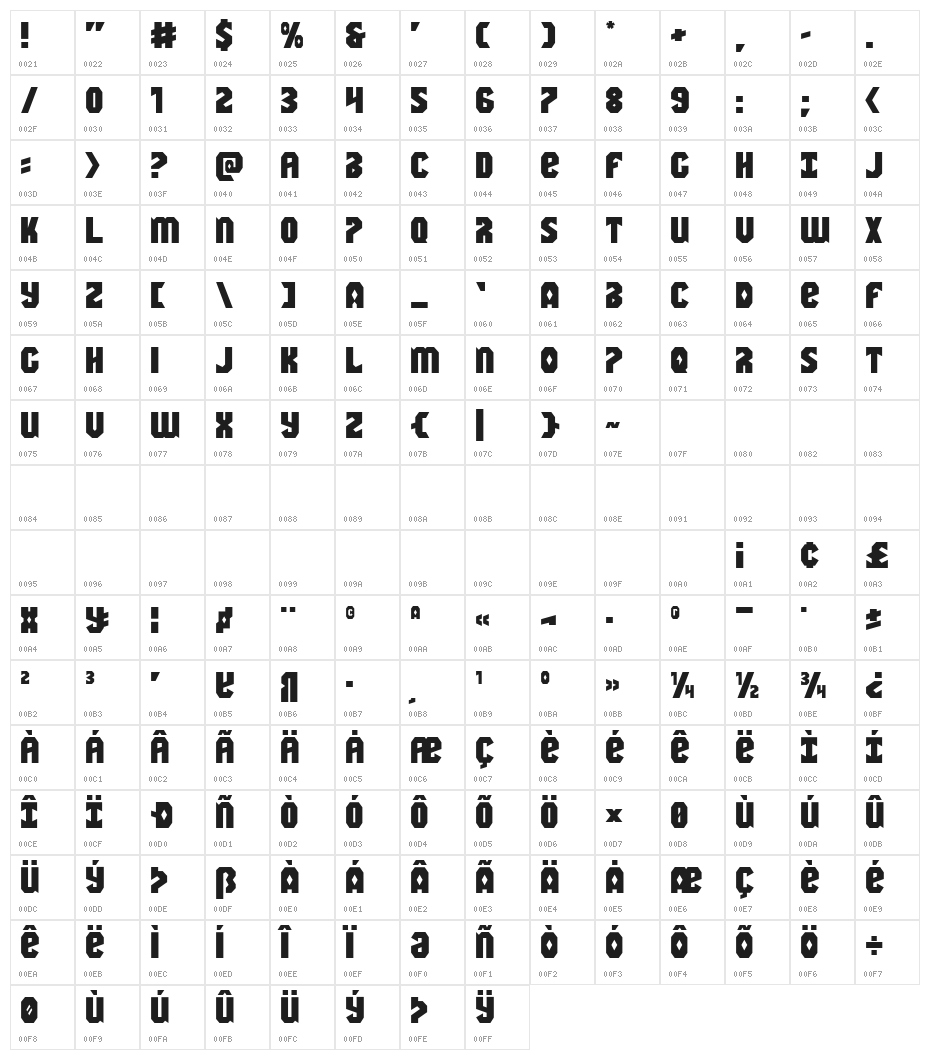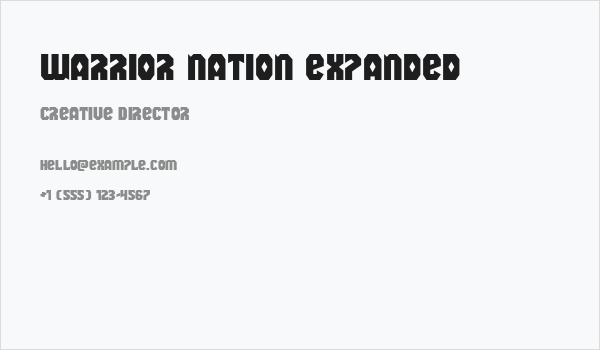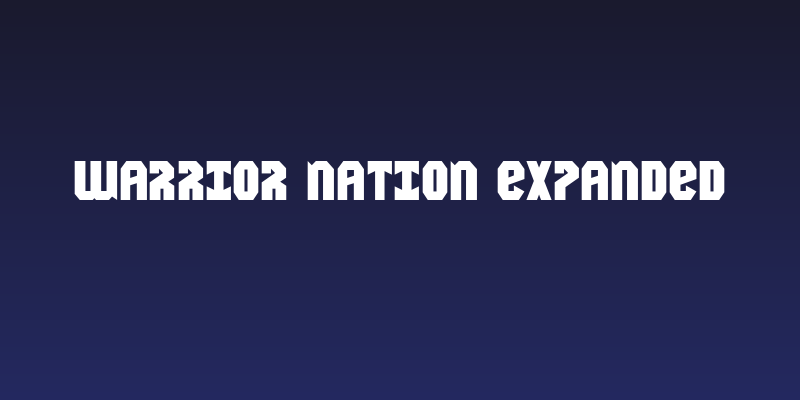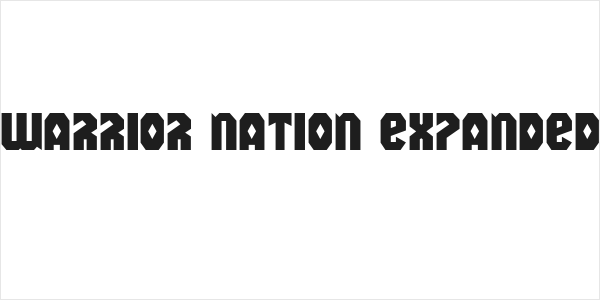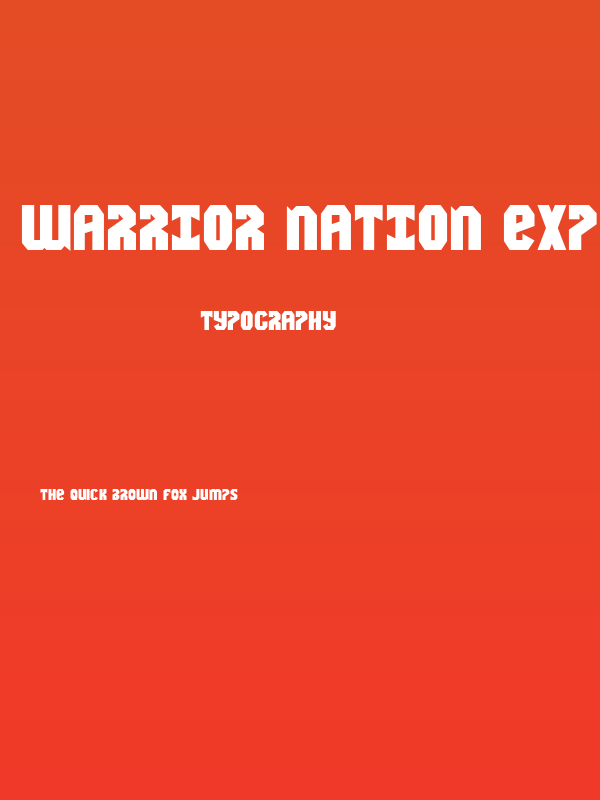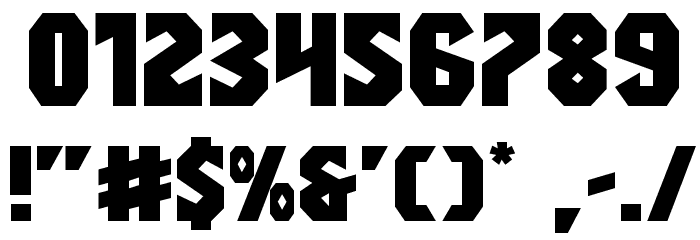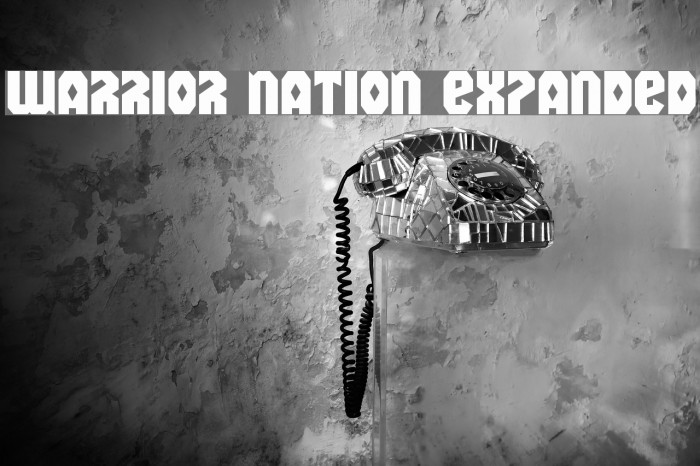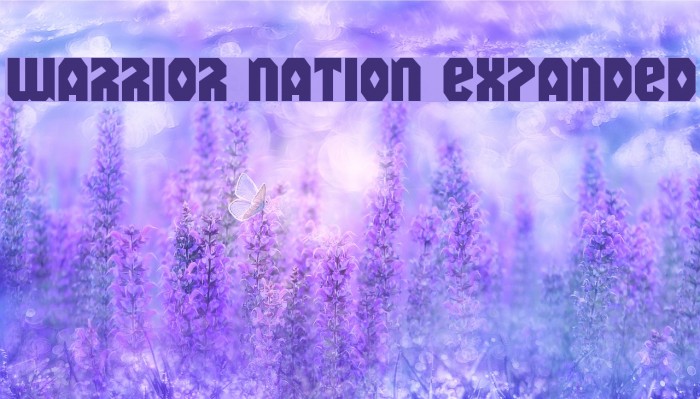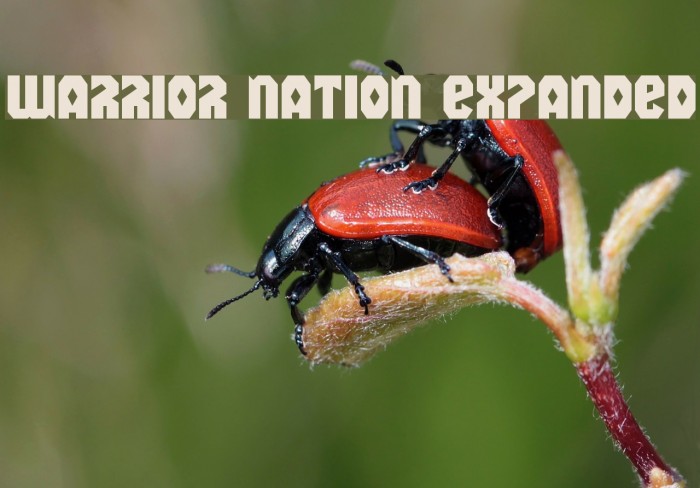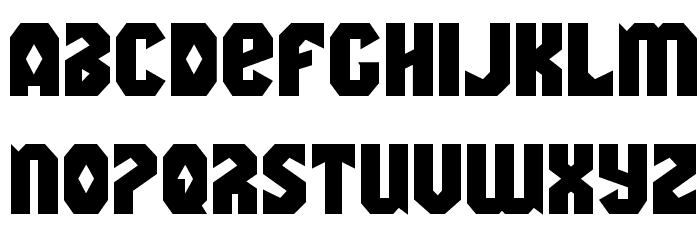
Warrior Nation Expanded Font
Warrior Nation Expanded Description
This font features a bold and striking design with angular, geometric shapes that give it a strong and commanding presence. The characters are uniformly wide, creating a sense of stability and power. The uppercase and lowercase letters maintain a consistent style, with sharp edges and a blocky appearance. The numbers and special characters follow the same design principles, ensuring a cohesive look across all elements. This font is ideal for projects that require a bold statement and a modern, edgy aesthetic.
| Proposed Projects | Ideal for branding, posters, video game titles, and any project needing a bold, modern look. |